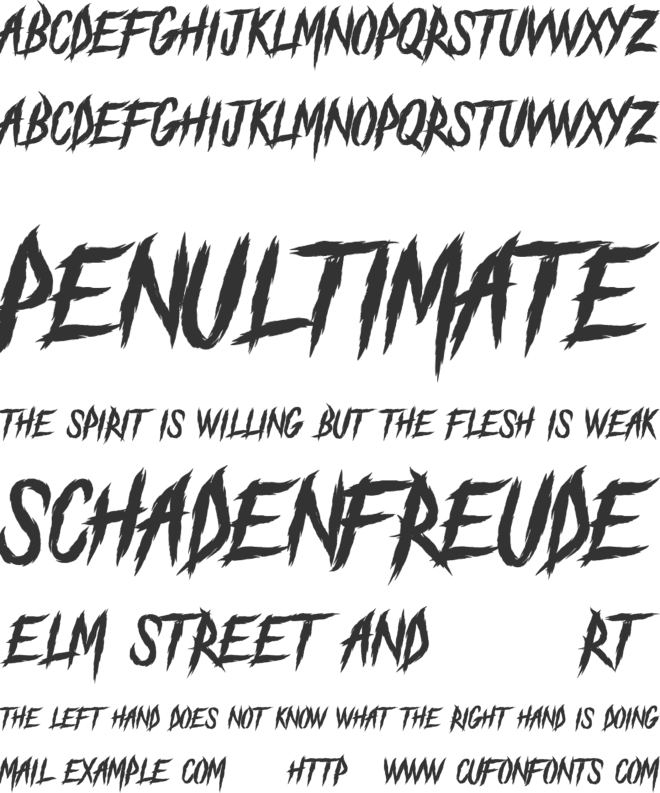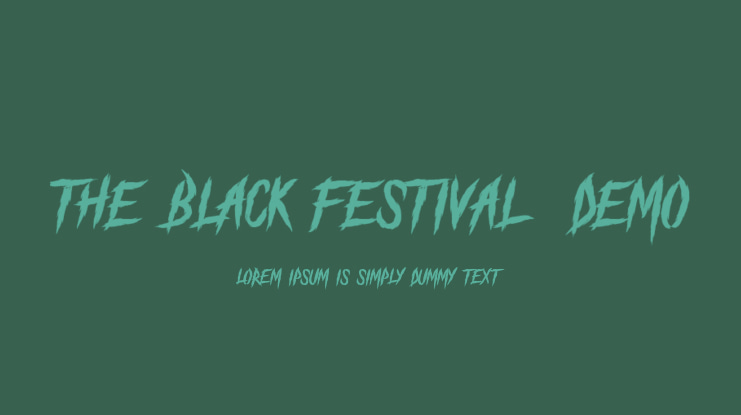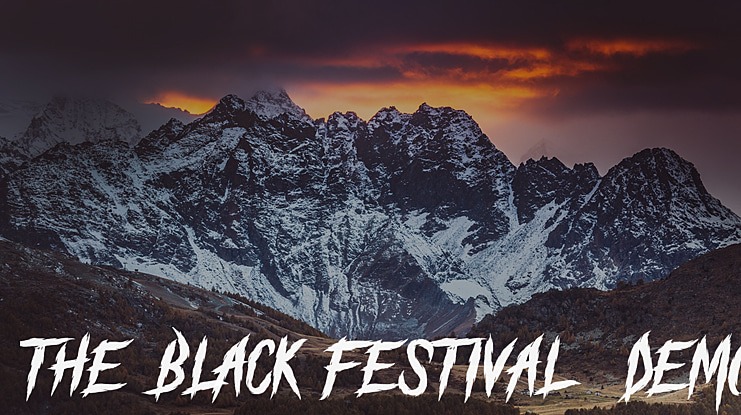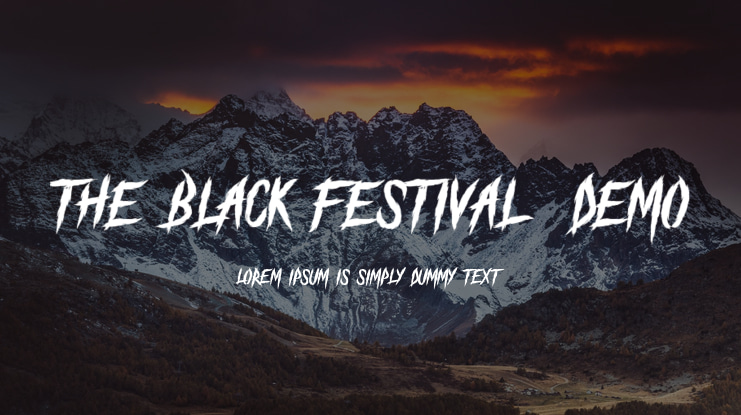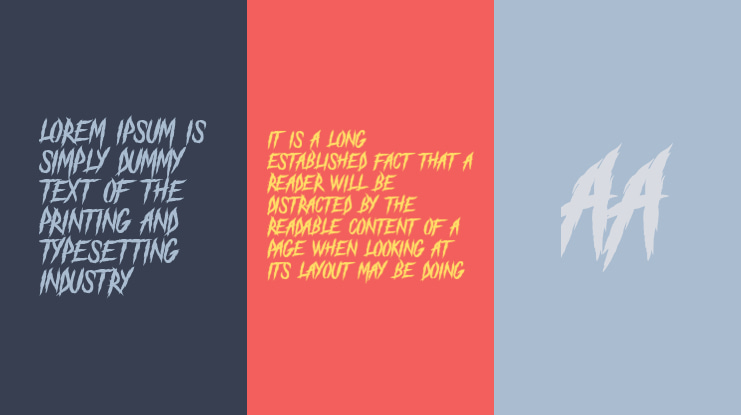
The Black Festival DEMO Font
Font: The Black Festival
- Font inspired by heavy and dark music - Available in uppercase and lowercase - 100% free for personal use only, accepts donations :) - Full Version and Commercial Use, available at - Website: https://cconceptlab.com/collections/fonts